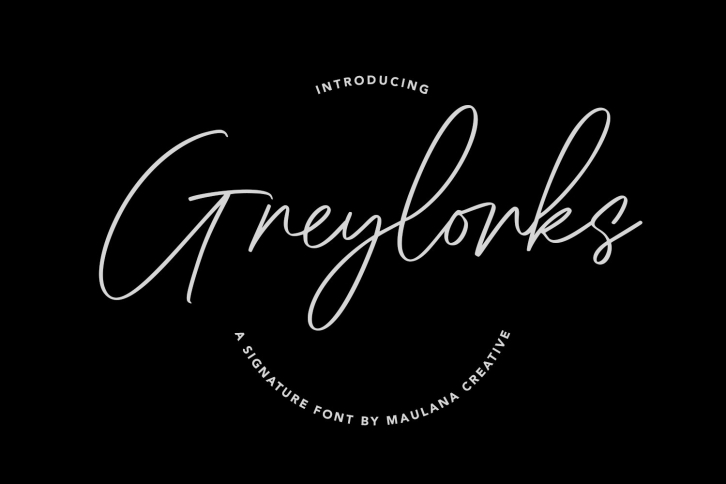
Greylorks Signature is a beautiful font that was designed by Maulana Creative. It's a great choice for designers and creatives who need such a font. It was released on April 18, 2021 and the file size is 16.62 MB. Greylorks Signature may give a more youthful, expressive and casual look to your project. It is a very beautiful, refined, elegant, and high-quality font.